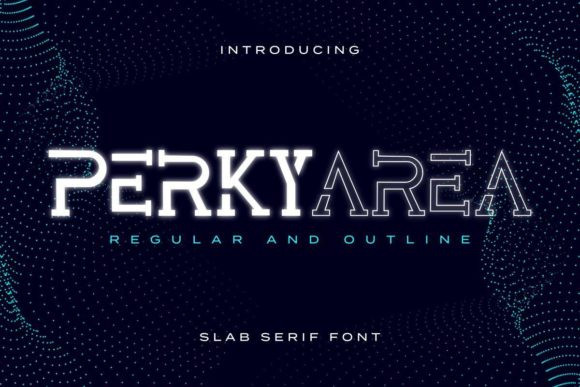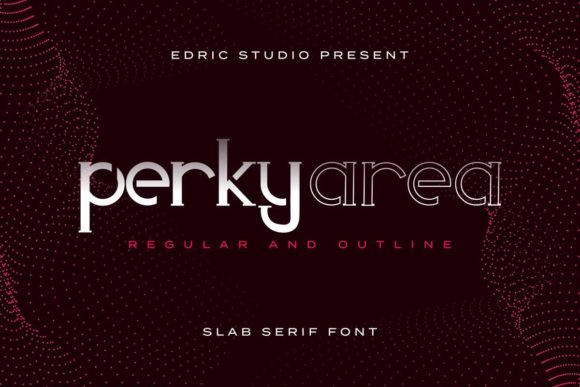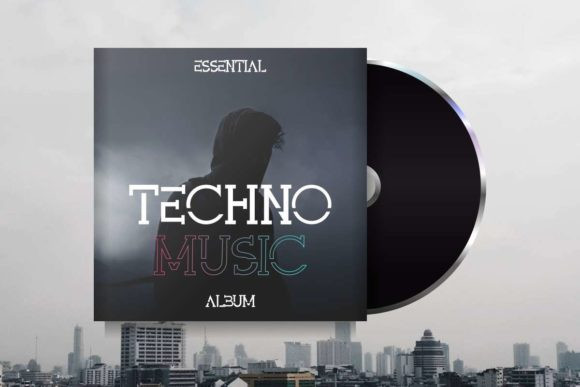
Perky Area Font
Perky Area is a great display font with a unique look. This playful font will look truly outstanding in a wide range of contexts. Use it for logos, movies, posters, flyers and much more!